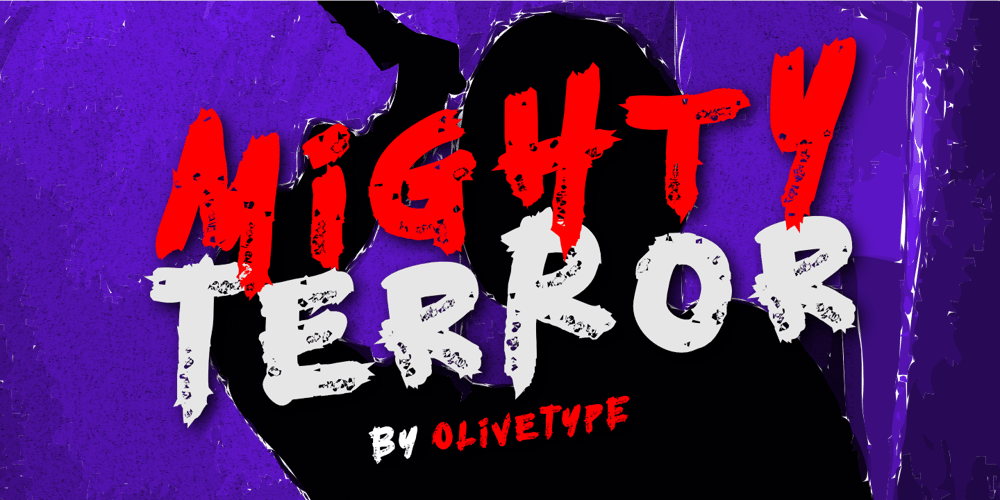
Mighty Terror Font Family was designed by Aldy Sidik, Nurul Hidayani and published by Olivetype. Mighty Terror contains 1 styles and family package options. Mighty Terror is a rough textured typeface with a personality that demands attention! This bold and unique font is perfect for creating headlines, posters, and eye-catching logotypes that leave a lasting impression. With its strong personalities, each character exudes character and adds a touch of ruggedness to any design.Mighty Terror features : Standard Latin Numbers, symbols, and punctuations Multilingual Support. Fully accessible without additional design software Simple Installations Works on PC & Mac Uppercase Thank You